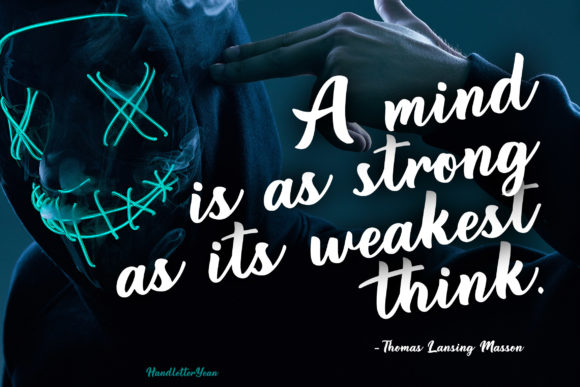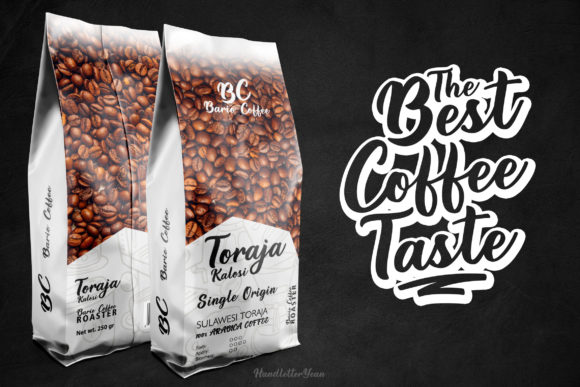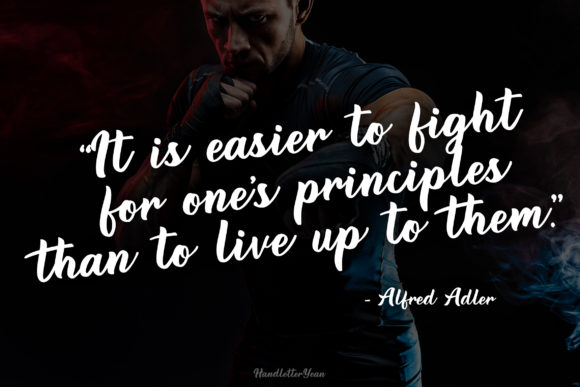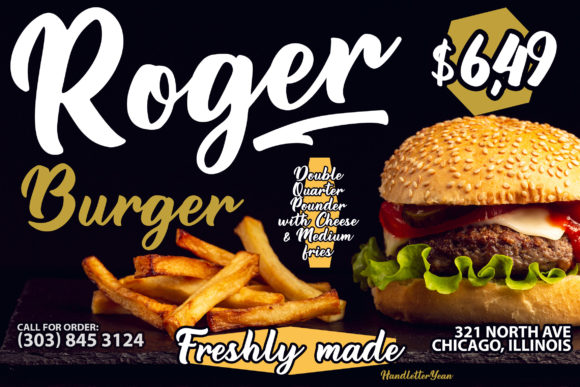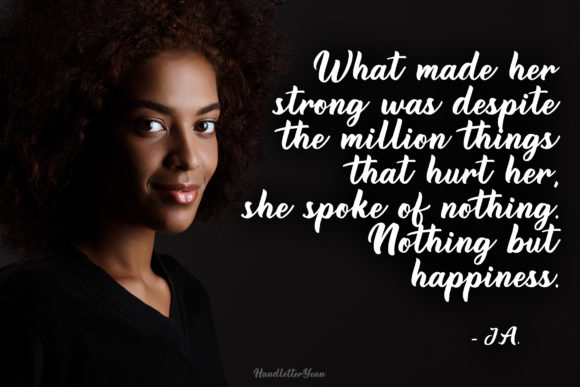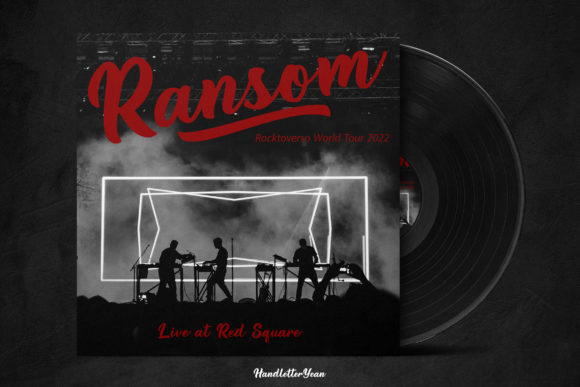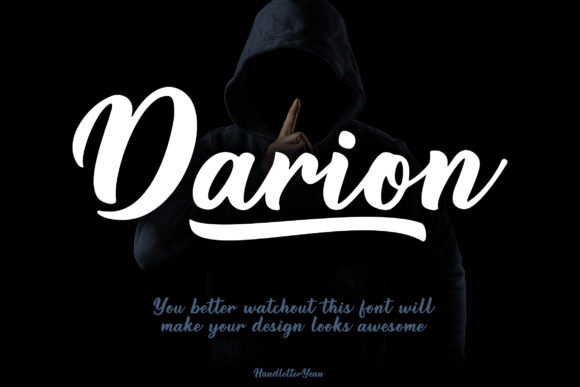
Introducing Darion Font: A Modern Bold Script Font with a Personal Touch
Are you tired of using the same old fonts in your designs? Look no further than Darion Font, a modern bold script font that adds a natural handwriting touch to any project. With its unique blend of elegance and playfulness, Darion Font is perfect for designers and crafters looking to add a personal touch to their work.
What Makes Darion Font Stand Out?
Darion Font is a modern bold script font that boasts a natural handwriting touch, making it perfect for a variety of design applications. Its unique characteristics include:
- Bold and Eye-Catching: Darion Font is a bold and eye-catching font that demands attention. Its thick strokes and confident lines make it perfect for headlines, titles, and other display text.
- Natural Handwriting Touch: Unlike other script fonts, Darion Font has a natural handwriting touch that gives it a personal and organic feel. This makes it perfect for designs that require a human touch.
- Versatile: Darion Font is incredibly versatile and can be used in a variety of design contexts, from busy backgrounds to standalone headlines.
Uses for Darion Font
Darion Font is perfect for a wide range of design applications, including:
- Headlines and Titles: Darion Font is perfect for headlines and titles that require a bold and eye-catching font.
- Branding and Identity: Darion Font can be used to create unique and memorable brand identities that stand out from the crowd.
- Packaging and Label Design: Darion Font is perfect for packaging and label design, adding a personal touch to product packaging.
- Digital Design: Darion Font can be used in digital design, including website headers, social media graphics, and more.
Why Choose Darion Font?
There are many reasons why designers and crafters should choose Darion Font for their next project:
- Unique and Memorable: Darion Font is a unique and memorable font that will help your designs stand out from the crowd.
- Easy to Read: Despite its bold and playful nature, Darion Font is easy to read, making it perfect for designs that require a clear and concise message.
- High-Quality: Darion Font is a high-quality font that is designed to deliver exceptional results in any design context.
Tips for Using Darion Font
To get the most out of Darion Font, follow these tips:
- Use it Boldly: Darion Font is a bold font, so use it boldly! Don’t be afraid to experiment with different sizes and colors.
- Pair it with Other Fonts: Darion Font pairs well with other fonts, so experiment with different combinations to find the perfect look for your design.
- Experiment with Colors: Darion Font looks great in a variety of colors, so don’t be afraid to experiment and find the perfect color for your design.
Darion Font is a modern bold script font with a natural handwriting touch that is perfect for designers and crafters looking to add a personal touch to their work. With its unique blend of elegance and playfulness, Darion Font is sure to make your designs stand out from the crowd. Whether you’re creating headlines, titles, or other display text, Darion Font is the perfect choice.